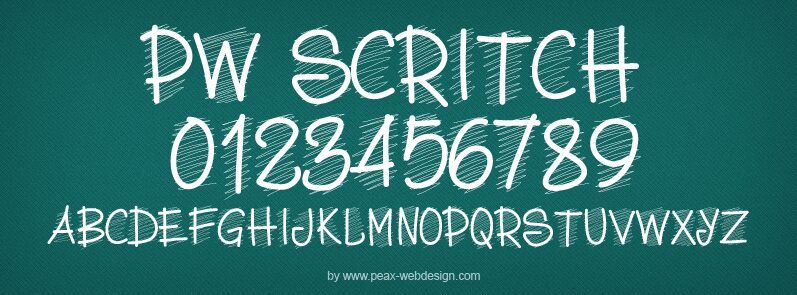
PW Scritch is a captivating script font that exudes a charming, handwritten flair. Crafted by Peax Webdesign, this versatile typeface boasts a distinctive school-inspired aesthetic, with its playful strokes and natural irregularities capturing the essence of a casual, yet stylish, handwriting.
The font's fluid lines and expressive curves make it an excellent choice for a wide range of design applications, from invitations and greeting cards to branding and packaging. PW Scritch's whimsical personality lends itself beautifully to projects that seek to convey a sense of warmth, creativity, and personal touch. Its unique character ensures that any design featuring this font will stand out and leave a lasting impression on the viewer.